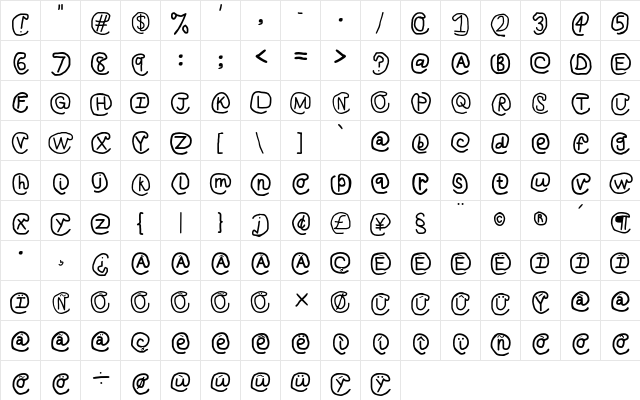
At Sign Regular
Design Context for At Sign Typeface
At Sign is a composed and adaptable typeface that performs quietly and consistently across a wide range of design contexts.